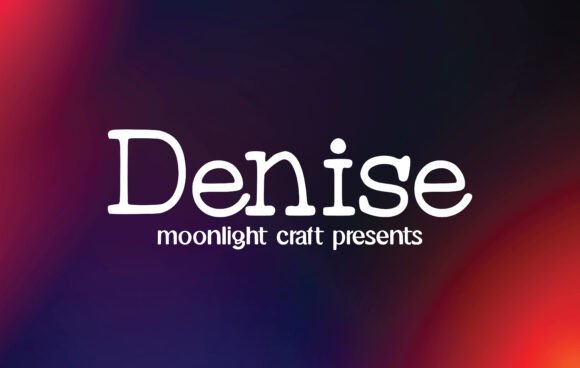
Discover the Versatility of Denise Font: Elevate Your Designs with Style and Personality
In the world of typography, a font can make all the difference in bringing your creative ideas to life. Meet Denise Font, a versatile and eye-catching typeface designed to be your go-to favorite for a wide range of design projects. With its clarity, readability, and stylish personality, Denise Font is the perfect choice for designers, artists, and crafty enthusiasts looking to add a touch of sophistication to their work.
The Characteristics of Denise Font
Denise Font is crafted to be clear and easy to read, making it an excellent choice for both titles and body text. Its clean lines, elegant curves, and balanced proportions create a visually appealing aesthetic that works well in various design contexts. Whether you’re working on magazine covers, t-shirts, social media posts, branding, wedding invitations, or greeting cards, Denise Font seamlessly fits in with style and personality.
Why Choose Denise Font?
So, what sets Denise Font apart from other typefaces? Here are some compelling reasons to make it your top choice:
- Versatility: Denise Font is designed to be versatile, allowing you to use it across different design projects, from print to digital media.
- Readability: Its clear and easy-to-read design makes it perfect for body text, ensuring that your message is conveyed effectively.
- Style and Personality: Denise Font adds a touch of sophistication and elegance to your designs, making them stand out from the crowd.
- Easy to Use: Denise Font is user-friendly, making it easy to integrate into your design workflow.
Design Applications for Denise Font
Denise Font’s versatility makes it an excellent choice for a wide range of design applications, including:
Magazine Covers
Create stunning magazine covers that grab attention with Denise Font. Its bold and elegant design makes it perfect for headlines, titles, and cover text.
T-Shirts and Apparel
Add a touch of style to your t-shirt designs with Denise Font. Its clear and readable design ensures that your message or logo looks great on apparel.
Social Media Posts
Elevate your social media game with Denise Font. Use it to create engaging posts, stories, and graphics that stand out from the crowd.
Branding and Logo Design
Denise Font is an excellent choice for branding and logo design. Its elegant and sophisticated design helps create a lasting impression on your audience.
Wedding Invitations and Greeting Cards
Add a touch of elegance to your wedding invitations and greeting cards with Denise Font. Its beautiful design makes it perfect for special occasions.
Tips for Using Denise Font Effectively
To get the most out of Denise Font, follow these tips:
- Experiment with Font Sizes: Play with different font sizes to create visual hierarchy and emphasize important information.
- Pair with Other Fonts: Combine Denise Font with other fonts to create a unique and visually appealing typography.
- Use Color Effectively: Choose colors that complement Denise Font and enhance your design.
- Keep it Simple: Don’t overcomplicate your design. Keep it simple and elegant to let Denise Font shine.
Denise Font is a versatile and eye-catching typeface designed to bring your creative ideas to life. With its clarity, readability, and stylish personality, it’s the perfect choice for designers, artists, and crafty enthusiasts looking to add a touch of sophistication to their work. Whether you’re working on magazine covers, t-shirts, social media posts, branding, wedding invitations, or greeting cards, Denise Font is the perfect fit. So, why wait? Discover the power of Denise Font and elevate your designs with style and personality.